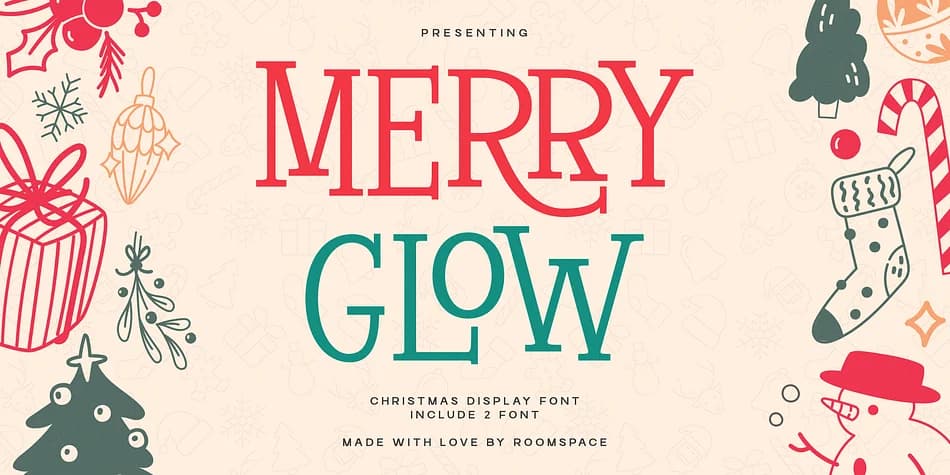
There's something instantly festive about letterforms with genuine warmth built into their curves. Merry Glow, designed by roomspace, brings two complementary fonts together: a confident classic serif paired with a decorative Christmas variant that delivers real character without overreaching.
You get both uppercase and lowercase coverage, full multilingual support, and multiple file formats (OTF, TTF, WOFF) so you can use it across print and digital projects. The real charm lies in how these fonts balance vintage sensibility with genuine personality, never tipping into nostalgia overkill. They shine in holiday greeting card suites, on custom Christmas ornament labels, adorning festive boutique gift packaging, and marking handmade craft fair signage. If you're a small retailer preparing seasonal products, you'll appreciate how professional yet approachable these letterforms feel on both labels and stickers. The decorative variant adds subtle visual texture without overwhelming the design, staying playful while avoiding anything cartoonish.
Merry Glow Font is a decorative font that shines as a display or heading face. Pair it with a clean sans-serif or serif font for body text β the contrast creates a clear hierarchy while the two styles stay balanced and easy to read.